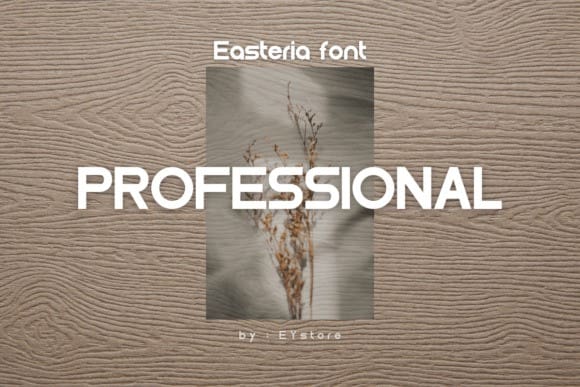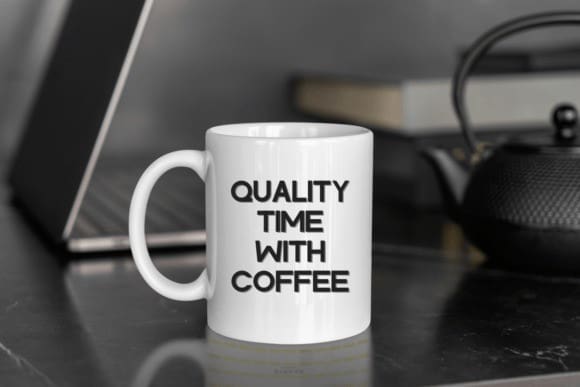
Easteria Font
Easteria Font is a bold and clean sans-serif font. It is very suitable for crafts, labels, quotes, decorations, labels, logotypes, book covers, t-shirts, web, posters, stickers, wall art, or other ideas.